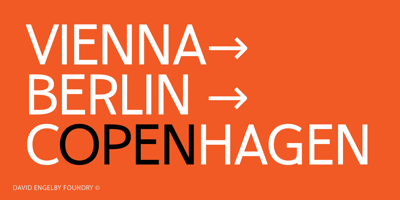
Copenhagen Grotesk Font Family was designed by David Engelby and published by David Engelby Foundry. Copenhagen Grotesk contains 3 styles and family package options. From Weimar to København/Copenhagen, picking up some decadent traits on its journey. The design of Copenhagen Grotesk is inspired by the great German grotesque type design history, although it will not fall into ranks in all aspects. Indeed, Copenhagen Grotesk will not be put into one single time pocket of style, so you’ll notice that there’s a hint of art deco style in its capital letters. The visual expression is first and foremost firmly rooted in the style of Scandinavian design, so feel free to use Copenhagen Grotesk for functional typographic design in relation to multiple media types.